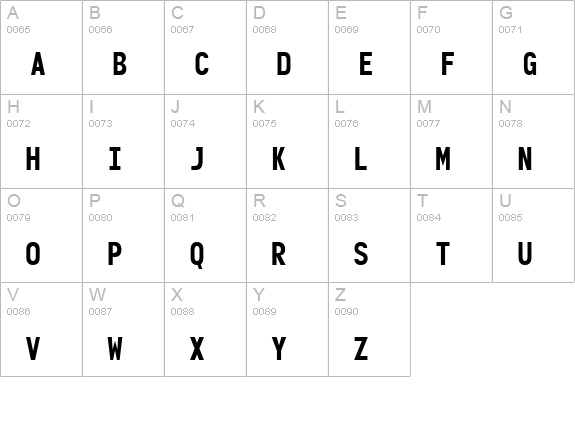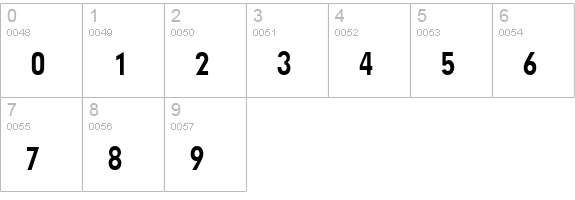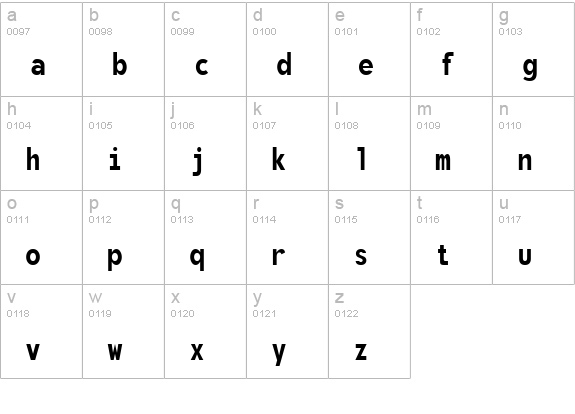
Monofonto Font Details
Monofonto is a sleek and modern monospaced font that exudes a sense of simplicity and sophistication. With its clean lines and sharp edges, Monofonto is perfect for creating a professional and polished look in any design project. Whether you're working on coding, graphic design, or any other creative endeavor, this versatile font is sure to make a statement. The best part? Monofonto is completely free to download at FontsMarket.com. So you can enhance your projects with this stylish font without breaking the bank. Don't miss out on the opportunity to add Monofonto to your font collection today!